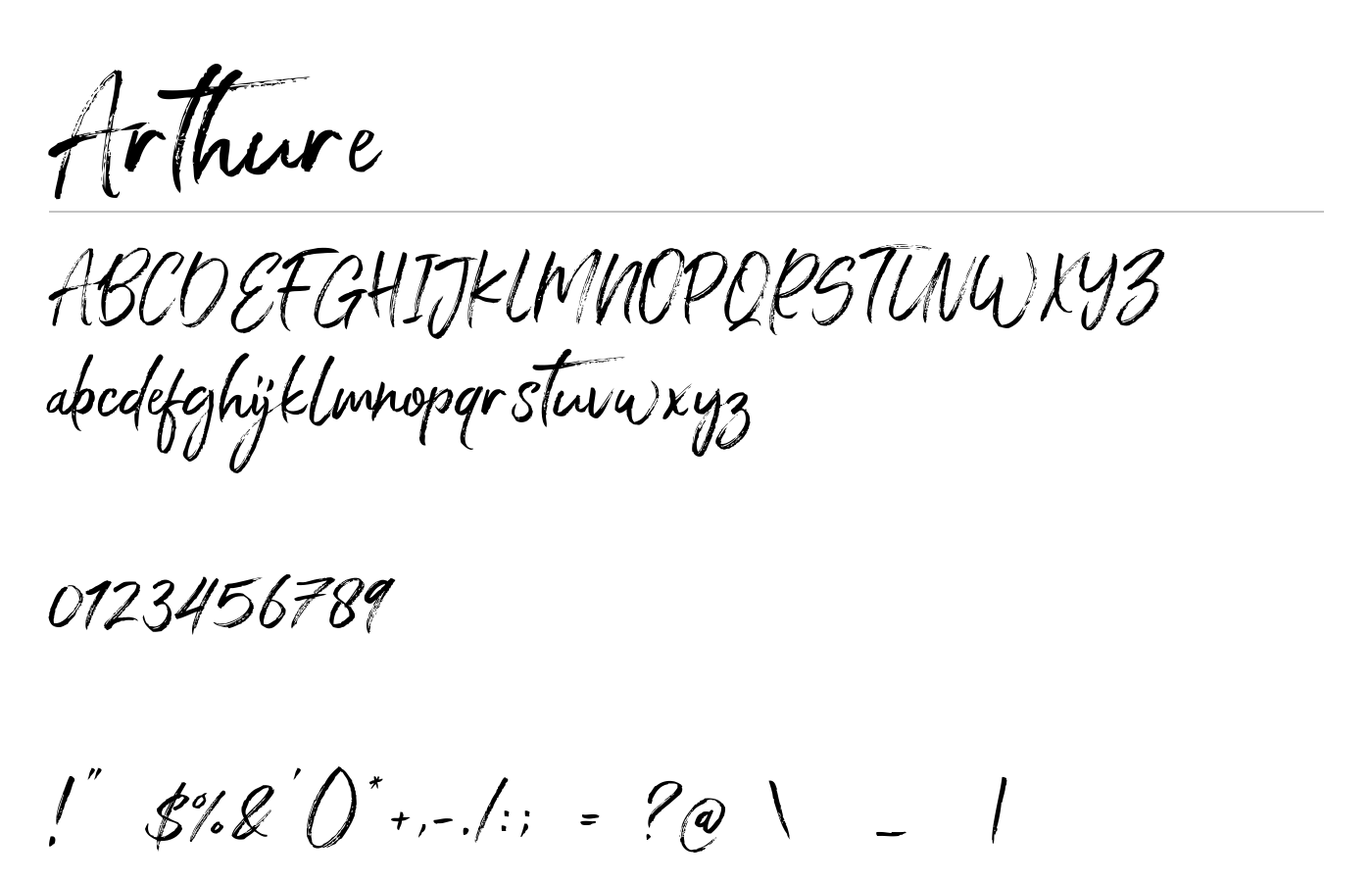
Arthure is a dynamic brush script font with a natural, hand-painted feel, characterized by its textured, irregular strokes and lively movement. Its tall, narrow letterforms and playful imperfect edges give it an energetic, artistic personality, making it ideal for creative branding, logos, posters, and packaging that want to convey a personal, expressive touch. This font works best in display settings where its unique style can shine and bring warmth and originality to modern, casual, or artisanal designs.
Arthure Font
About Arthure Font
| Font family | Arthure Font |